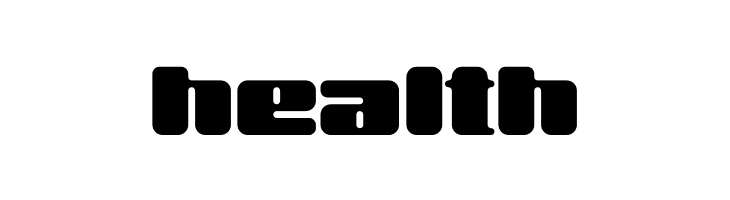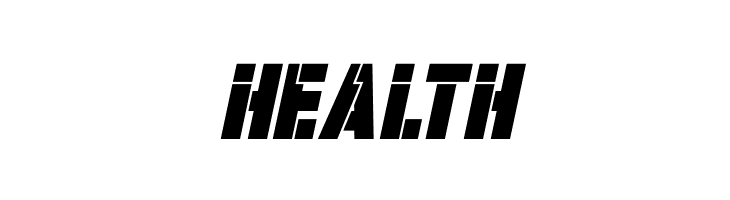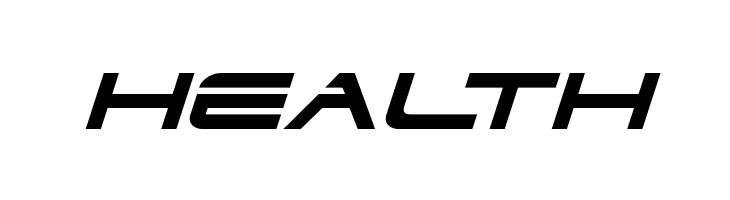
A bold, 3D-effect font with a strong, blocky style ideal for dynamic displays.
A bold, stencil-style font with sharp, angular edges and a geometric design.
A bold, geometric font with rounded edges and uniform strokes.
A bold, vintage collegiate font with strong slab serifs and a classic varsity style.
A bold, striped collegiate-style font with a nostalgic varsity feel.
A bold, outlined collegiate-style font with a modern, decorative twist.
A bold, decorative font with a vintage, textured style ideal for standout designs.
A bold, collegiate-style font with outlined, block-like characters.
A bold, italicized, futuristic font with sharp angles and a dynamic design.
A sleek, italic font with a futuristic and dynamic design.